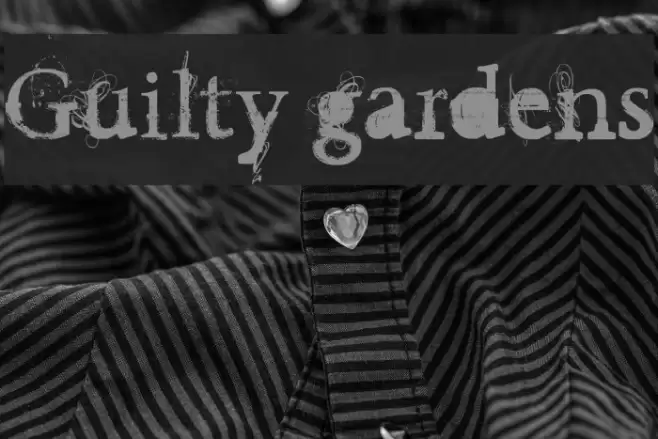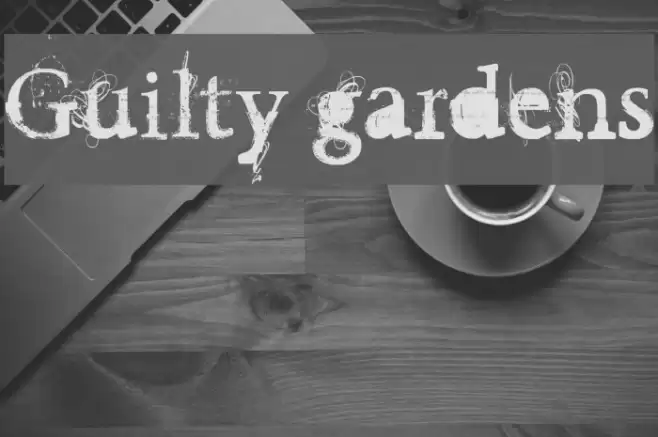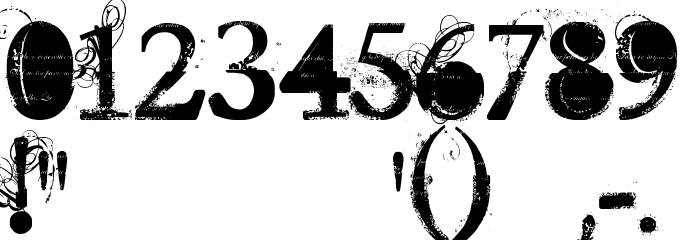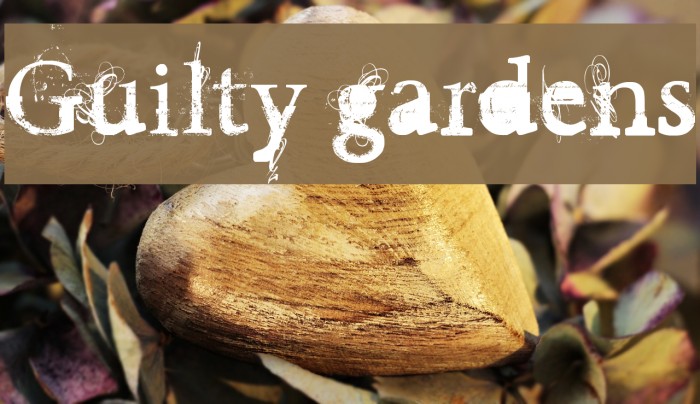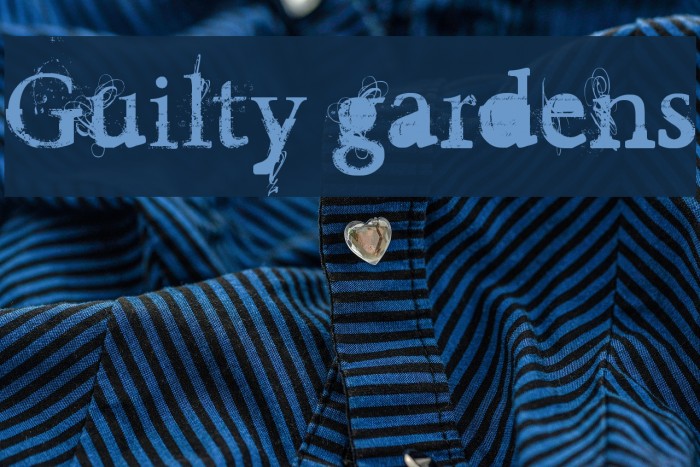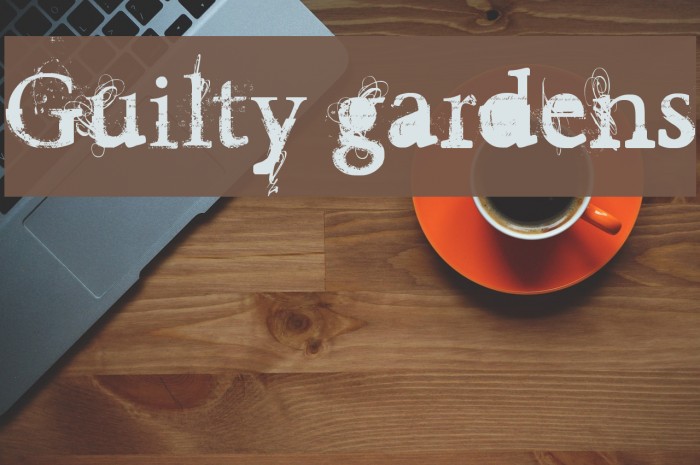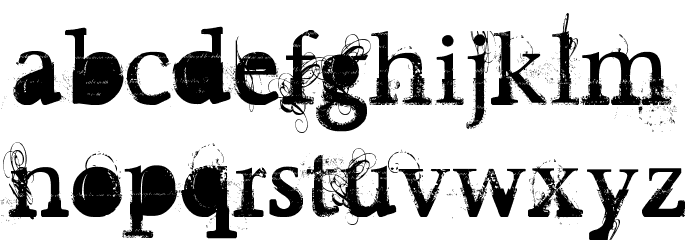
Guilty gardens Font
Guilty gardens Description
This font features a distressed and grungy aesthetic, with a decorative flair that includes ornate swirls and flourishes integrated into the letterforms. The uppercase and lowercase letters maintain a consistent style, with bold strokes and a textured appearance that suggests wear and age. Numbers and special characters follow the same design principles, adding to the font's cohesive look. The overall impression is one of artistic decay, making it suitable for projects that require a vintage or edgy feel.
A distressed, decorative font with ornate swirls and a grungy aesthetic from Distorted Eroded fonts.
- Proposed Projects: Ideal for album covers, posters, and branding projects that require a vintage or edgy look.
- Overall Style: Vintage, Decorative
- Use Case: Logos, Posters, Album Covers